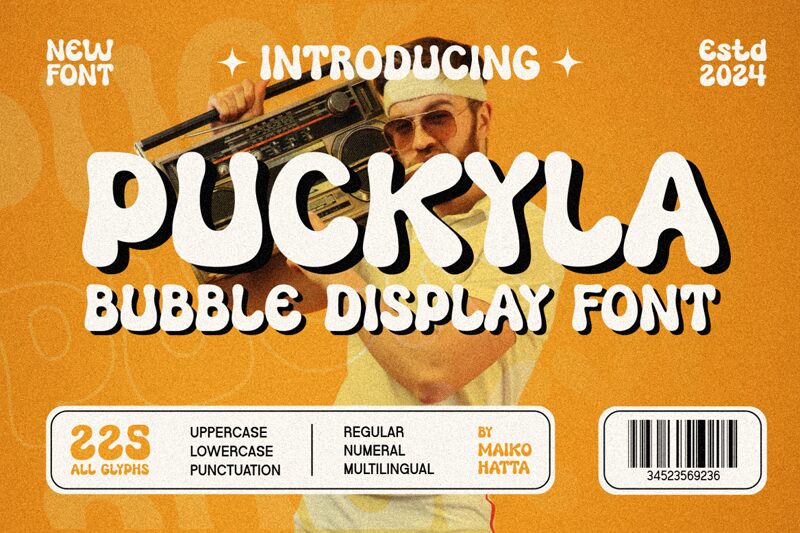
PUCKYLA
PUCKYLA font by Maikohatta is a free groovy font, with soft, blobby letterforms that feel like thick paint squeezed straight from a tube. Its chunky rhythm and friendly curves keep words bold and readable even when the shapes get playful, giving headlines that cozy, hand-drawn bounce without looking messy. It’s the kind of typeface that brings instant warmth and a little mischief to a layout.
Using PUCKYLA on sticker designs, kids’ packaging, snack branding, indie merch, playful posters, YouTube thumbnails, and quirky logo marks gives your message a big, gummy punch. This free font also shines on short slogans and bold titles—give it breathing room and let the shapes do the talking. Pair PUCKYLA with a clean geometric sans for body copy to keep everything crisp and balanced.